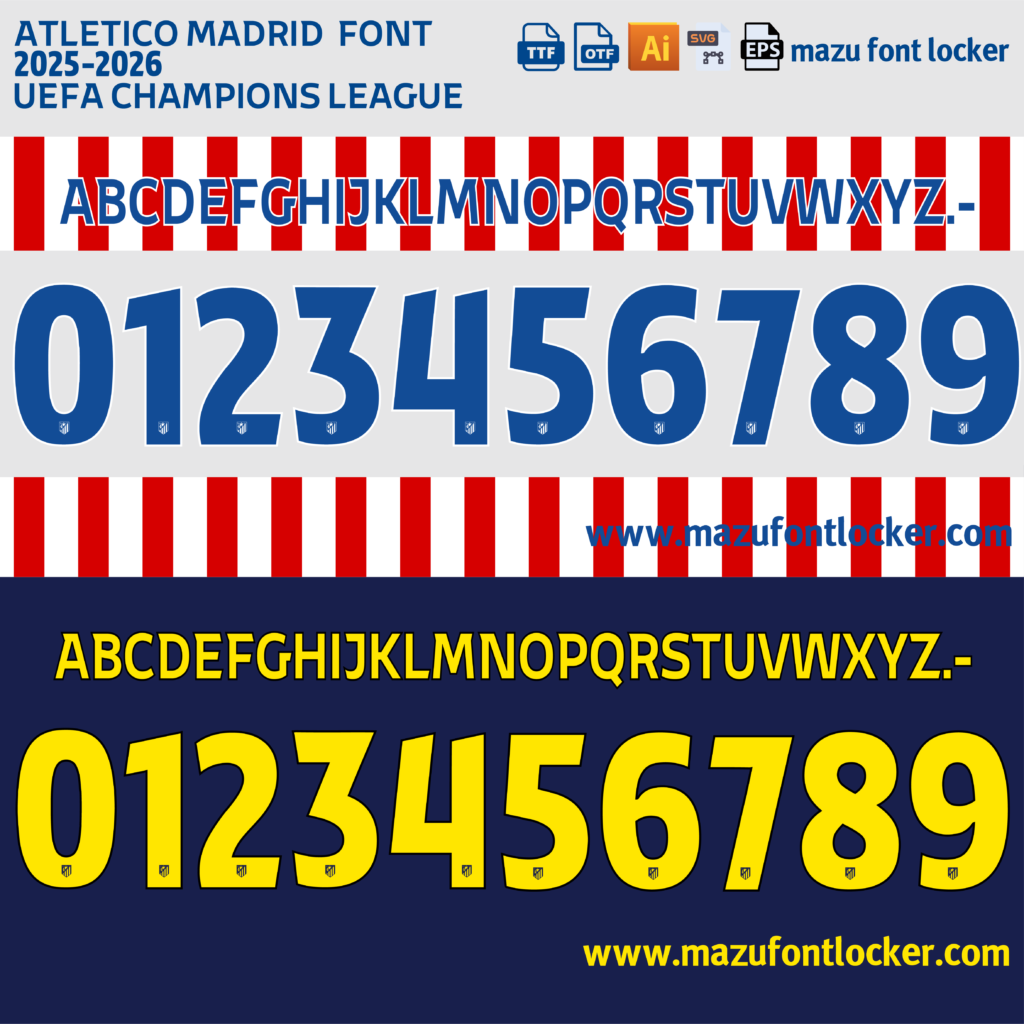
Atletico Madrid 2025-2026 Font Vector – Fierce La Liga Jersey Style for Champions
Product Details Atletico Madrid 2025-2026 Font Vector The Atletico Madrid 2025-2026 Font is a premium, high-precision football jersey font vector meticulously engineered to capture the relentless intensity, defensive mastery, and passionate identity of one of Spain’s most fearless football clubs. Inspired by Atletico Madrid’s iconic fighting spirit and their 2025/26 La Liga campaign, this font unleashes a bold, aggressive, and electrifying presence that radiates resilience, tactical discipline, and unstoppable Madrid pride. Every letter and number has been painstakingly recreated with razor-sharp precision to embody the hard-working, fearless, and championship-driven aesthetic that defines Atletico Madrid under pressure on the world stage. Perfect for professional sports designers, die-hard Atletico fans, custom jersey creators, sublimation projects, fan merchandise, and premium creative work — whether for digital domination or high-quality print production. Feel the roar of the Metropolitano. Ignite the passion of Los Colchoneros. Unleash the unstoppable fighting spirit of Atletico Madrid greatness. Atletico Madrid 2025-2026 Font Features This premium football font package includes everything needed for professional jersey design and customisation: Authentic 2025-2026 Atletico Madrid jersey lettering style Fully editable vector files Includes OTF and TTF font formats High-resolution scalable design Clean and precise number detailing Suitable for print and digital projects Files Included The package contains complete resources for creating realistic football shirt designs: Full alphabet set (A–Z) Numbers set (0–9) AI, EPS, and SVG vector files OTF and TTF font files 300 DPI high-resolution files All files are organized and easy to use, making installation and editing simple even for beginners. Perfect For Football Jersey Customisation This vintage football font set is ideal for: Custom football jersey printing Cricut and Silhouette vinyl cutting Sportswear branding projects Graphic design and digital artwork Football fan merchandise and collectibles The authentic lettering style helps recreate the classic look of the Atletico Madrid 2025-2026 kit with professional accuracy. Software Compatibility The vector files and fonts are fully compatible with popular design software, including: Adobe Illustrator Adobe Photoshop CorelDRAW You can easily edit, resize, and customize the files without losing image quality. ⚡ Why Choose This Football Font? Unlike generic jersey fonts, this set is designed with a strong focus on authenticity and accuracy. Every detail is based on the original match lettering style used during the 2025-2026, helping designers and collectors create realistic football shirt designs. The scalable vector format provides complete flexibility for both small and large projects, whether for printing, digital artwork, or personal collections. Easy to Use Simply install the OTF or TTF font files, or edit the vector files directly in your preferred design software. The package is beginner-friendly while still offering professional-quality customization options. Instant Digital Download This is a digital product available for instant download after purchase. No physical item will be shipped. Once downloaded, you can immediately start creating custom football jersey designs. ❓ Frequently Asked Questions What file formats are included? AI, EPS, SVG, OTF, and TTF formats are included. Can I use this font for commercial projects? Yes, suitable for both personal and commercial design projects depending on your license. Additional Information This Atletico Madrid 2025-2026 font vector set is designed for authentic football jersey customization and works perfectly for retro football projects, collector designs, and professional sportswear artwork.